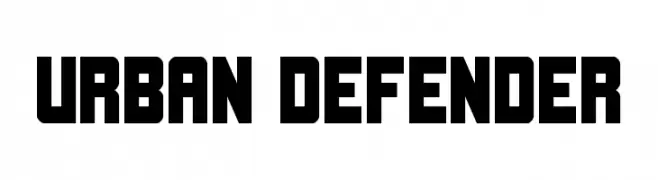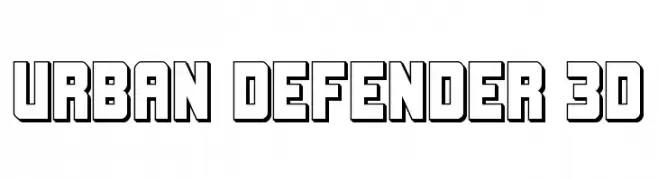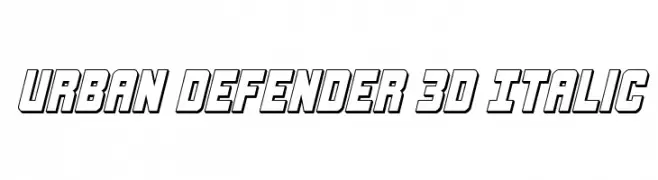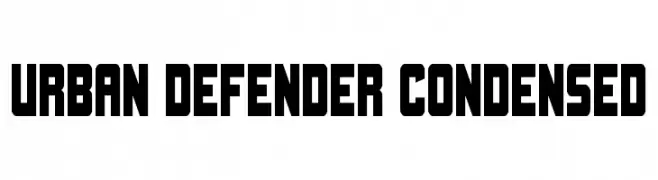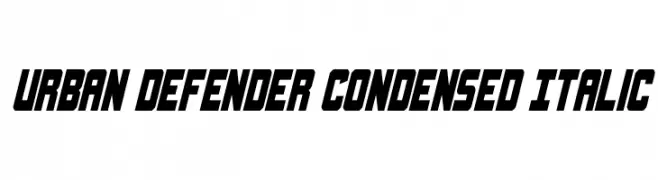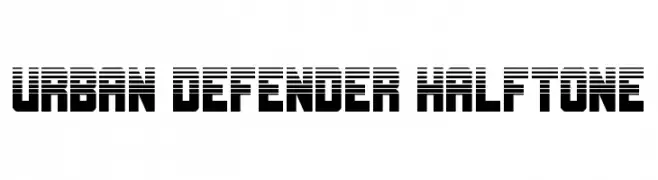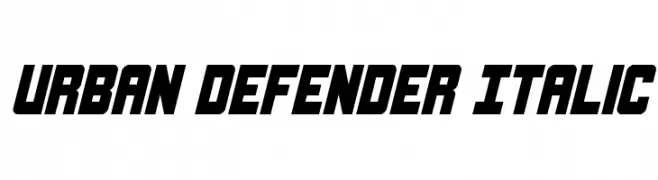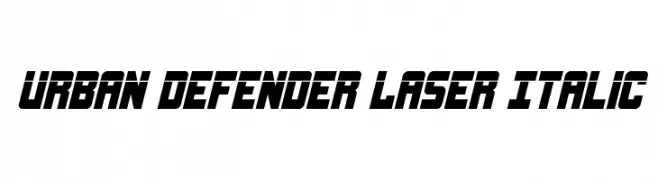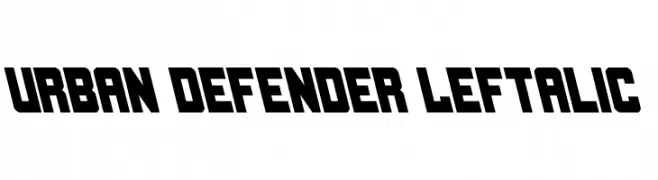
A bold, geometric font with a modern, urban aesthetic.
A bold, geometric font with a strong urban aesthetic.
A bold, 3D geometric font with an urban, industrial style.
Bold, 3D italic font with outlined characters and a modern, dynamic style.
A bold, condensed font with geometric shapes and a modern look.
A bold, condensed, and italicized font with a modern, dynamic style.
A bold, geometric font with expanded width and high contrast, perfect for impactful headlines.
A bold, italicized, and expanded font with a modern, dynamic style.
A bold, futuristic font with a gradient effect and high contrast, ideal for modern designs.
A bold, italicized font with a futuristic gradient and striped design.
A bold, geometric font with a halftone effect for a modern, urban look.
A bold, italicized font with a halftone effect, exuding a futuristic and dynamic style.
A bold, italicized font with a modern, angular design.
A bold, geometric font with a futuristic and industrial design.
A bold, italicized font with a futuristic and dynamic style.
A bold, angular font with a dynamic, slanted style.
A bold, semi-italic font with a modern, urban aesthetic.
A bold, italic, and geometric font with a dynamic and modern style.
A bold, geometric font with strong, angular lines and a modern, industrial aesthetic.
A bold, italicized font with a modern and dynamic style.
A bold, geometric font with a two-tone striped effect.
A bold, two-tone italic font with a dynamic, futuristic style.
A modern, geometric sans-serif font with clean lines and consistent stroke width.
A modern, geometric sans-serif font with clean lines and balanced proportions.
A modern, bold, and italicized font with a sleek and dynamic style.
A modern, geometric font with an inline style for added depth.